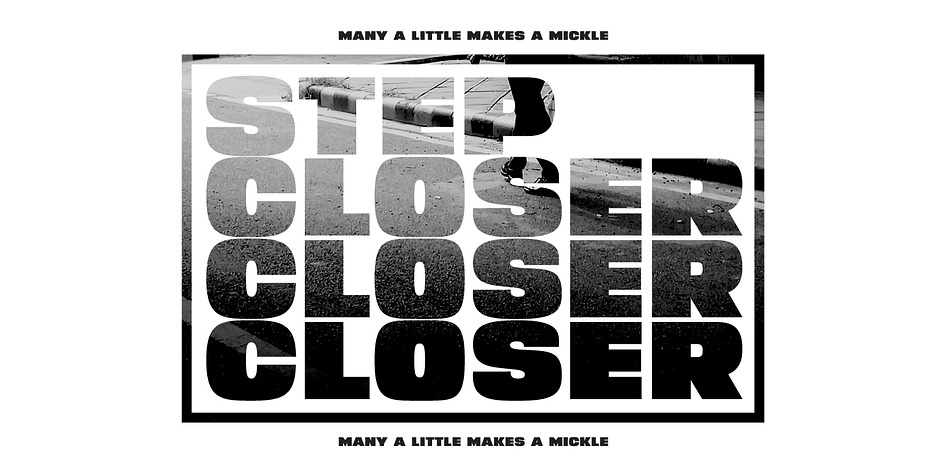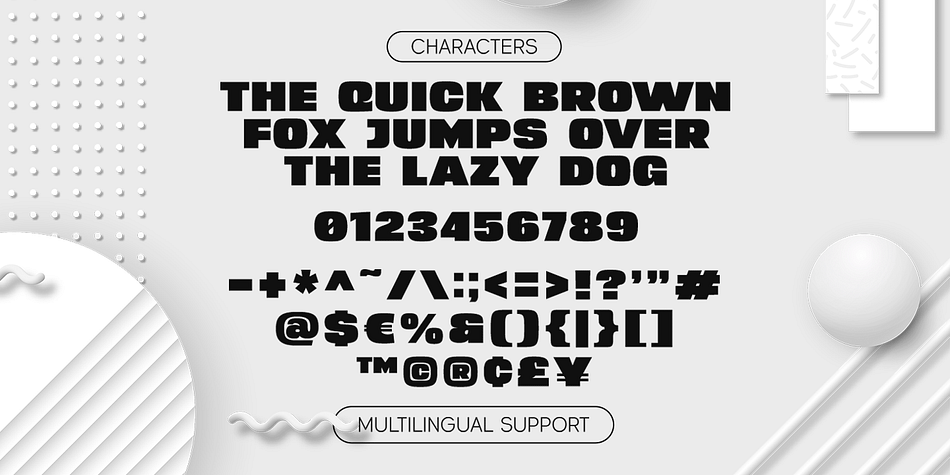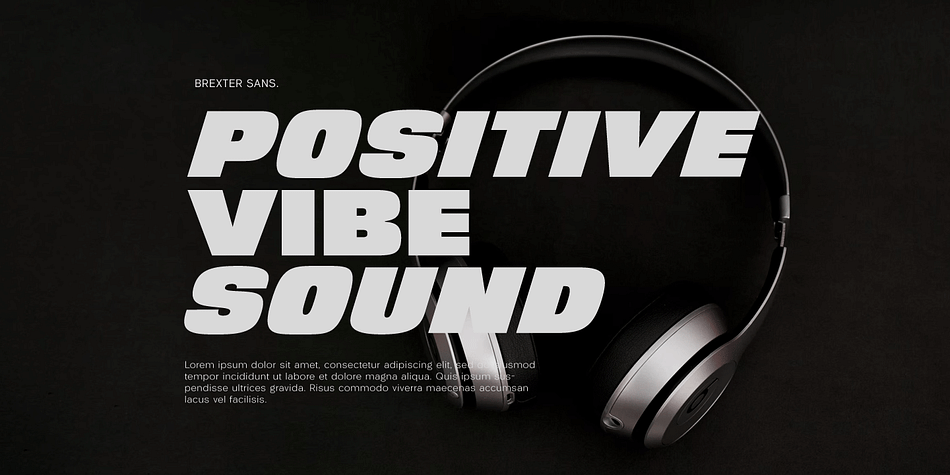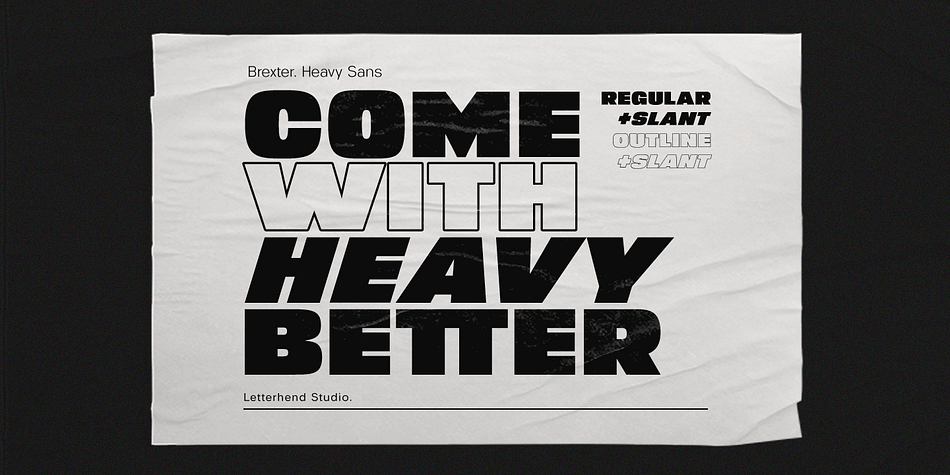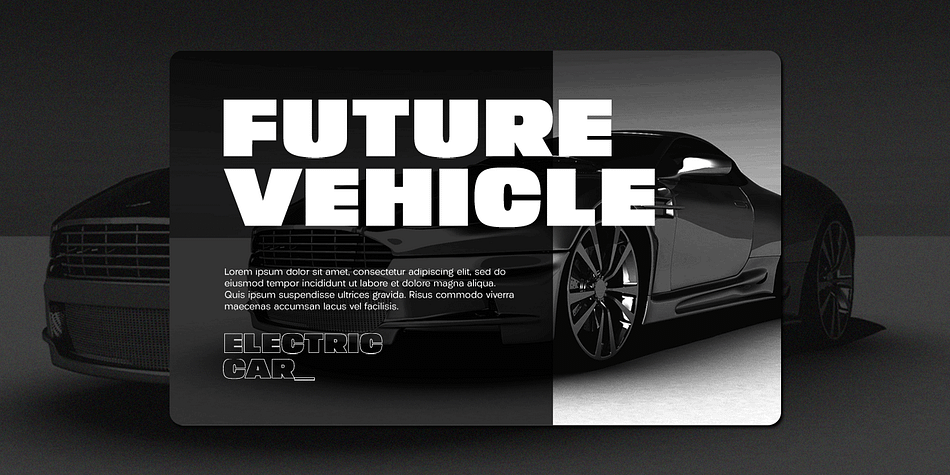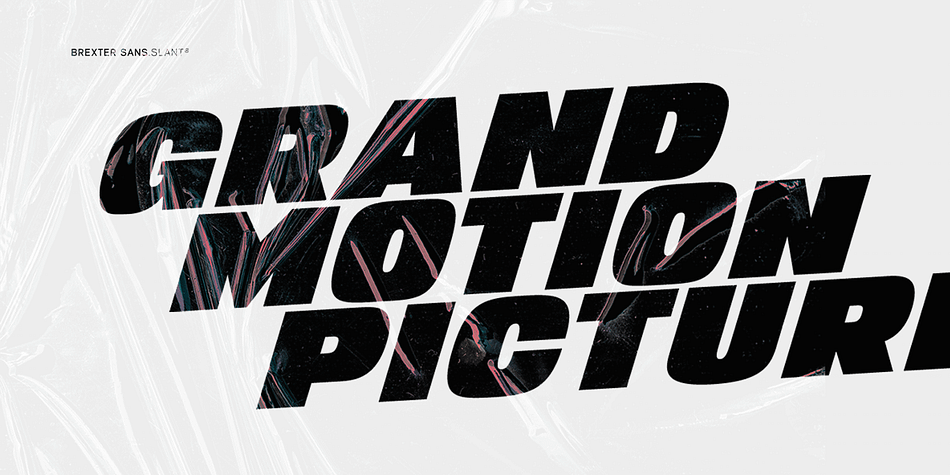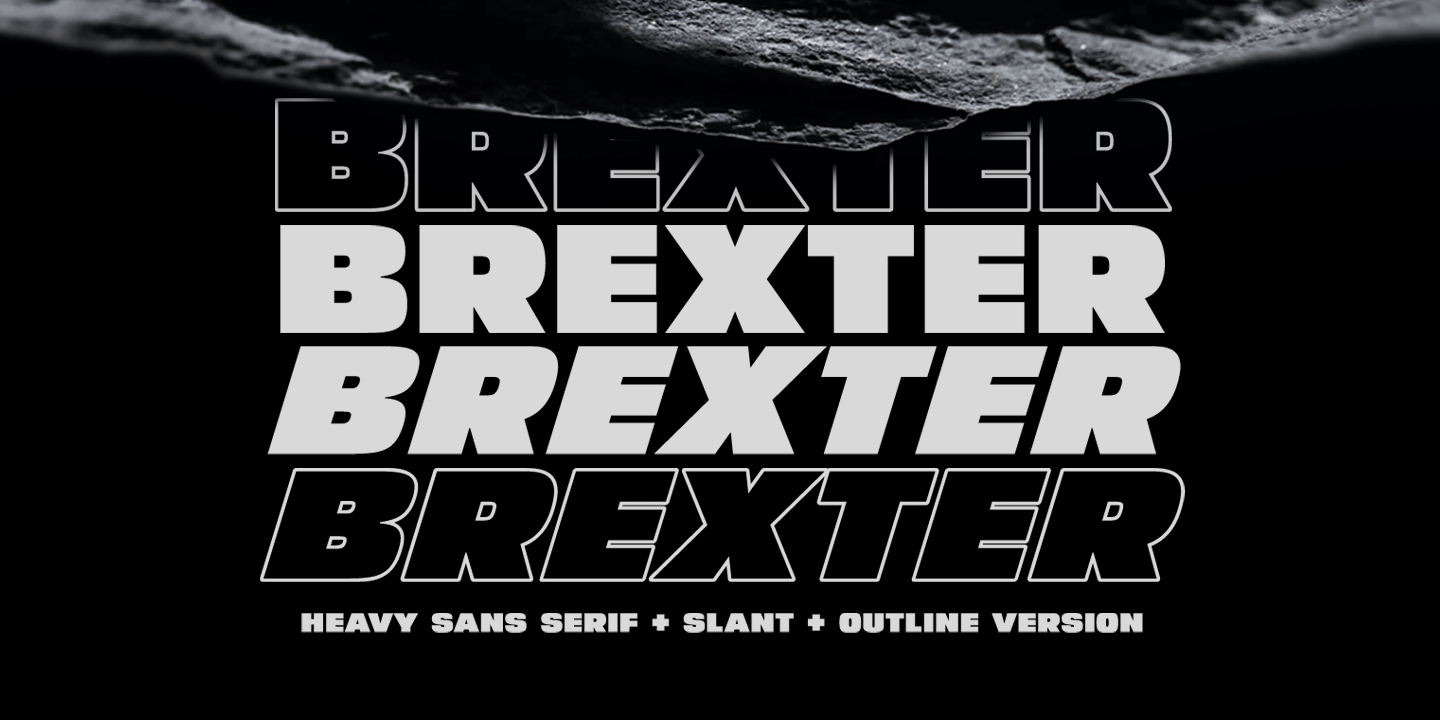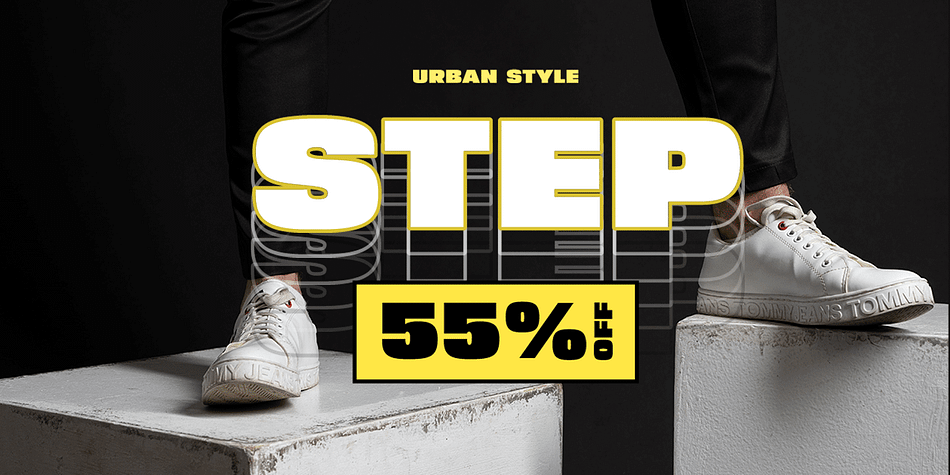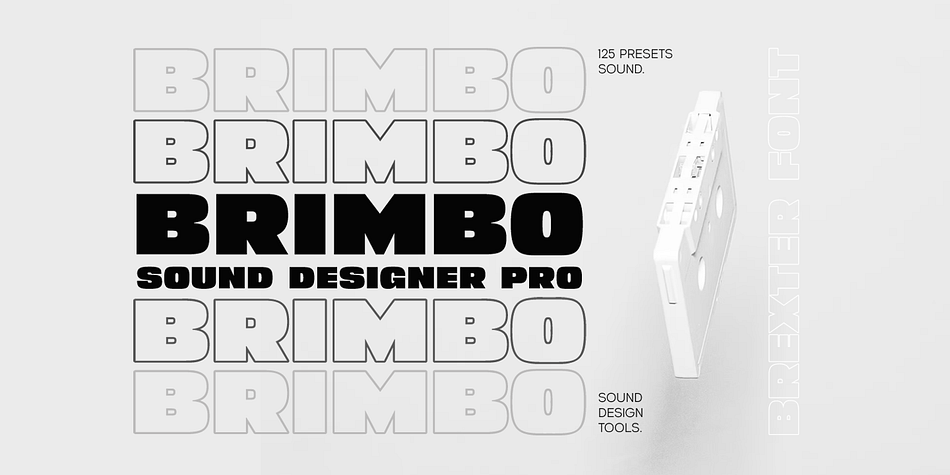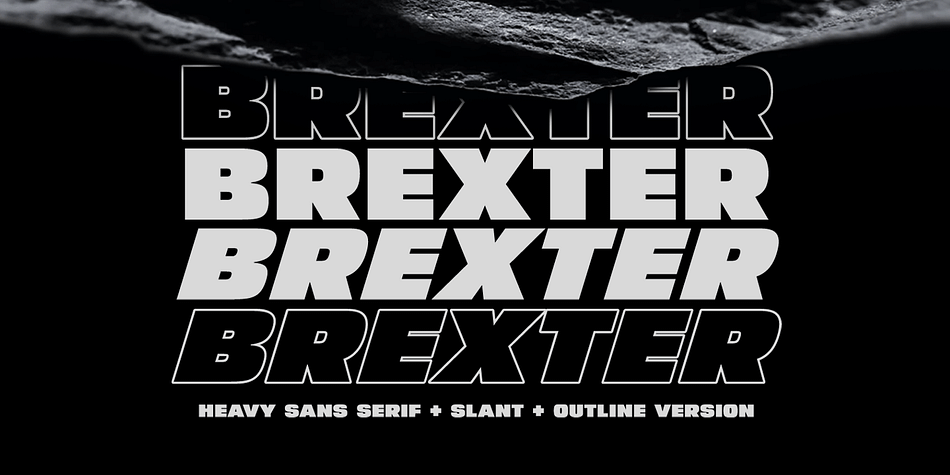
BREXTER
Designed by Hendry Juanda, Brexter is a display sans font family. This typeface has four styles and was published by Letterhend Studio.
Brexter is a heavy and bold sans serif font, comes with four styles regular and slant, with outline version as well. If you need a typeface with strong yet easy readability, this is the right choice. This type of font perfectly made to be applied especially in logo, headline, signage and the other various formal forms such as invitations, labels, logos, magazines, books, greeting / wedding cards, packaging, fashion, make up, stationery, novels, labels or any type of advertising purpose.
- regular and slant with outline version